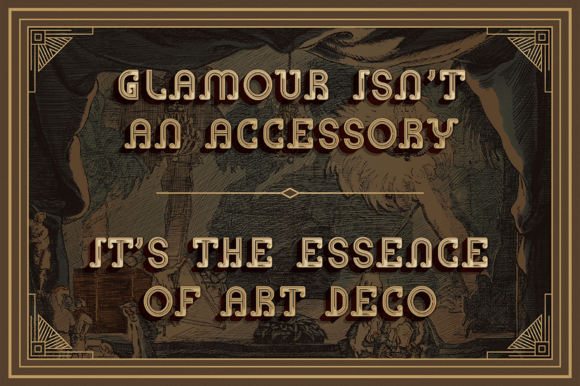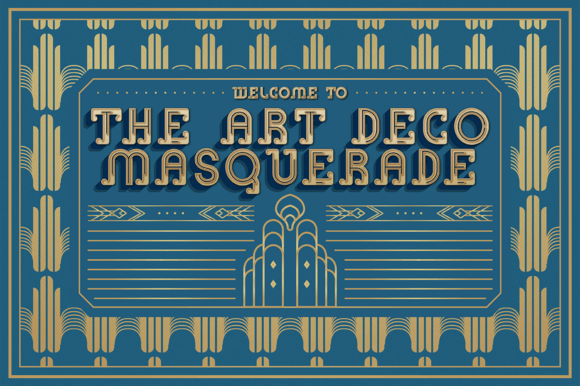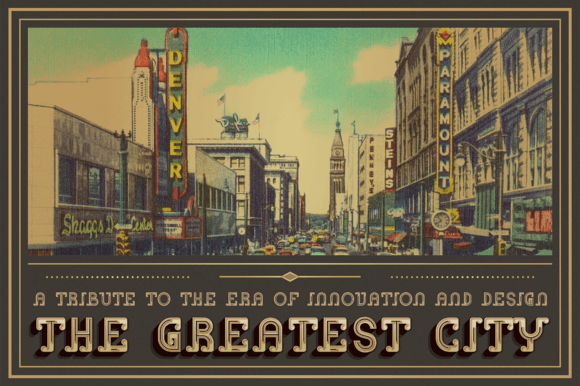
Introduction to Inline Heritage – Art Deco Font
Have you ever stumbled upon an old vintage poster or a luxurious invitation that transports you to a bygone era? For designers, this moment of discovery is often a spark that ignites a creative project. As we gaze upon the intricate details and bold lines of a bygone era, we can’t help but feel inspired to bring a touch of that glamour into our own work. This is exactly what Inline Heritage – Art Deco Font offers: a high-quality design resource that combines the elegance of Art Deco with modern versatility.
Whether you’re working on a creative project that requires a luxurious feel or simply need a reliable design element to elevate your branding, Inline Heritage is an invaluable resource. Its sleek lines and ornate style evoke the grandeur of Art Deco architecture, while its transparent background and free download make it a convenient addition to any project. In this article, we’ll delve into the world of Inline Heritage and explore why it’s a must-have for designers.
Key Features of Inline Heritage – Art Deco Font
- High-quality design resource perfect for creative projects
- Supports Latin characters and numbers, making it ideal for various design applications
- Unique Art Deco design with intricate details and ornate flourishes, adding a touch of elegance to any project
- Perfect for use in graphic design, branding, advertising, and other creative projects where a touch of luxury and sophistication is desired
Honest Review: Inline Heritage – Art Deco Font
As a designer, I’m always on the lookout for high-quality fonts to elevate my creative projects. The Inline Heritage – Art Deco Font is a great addition to any design resource collection. This font is perfect for designers who want to add a touch of luxury and sophistication to their designs.
- ✨ High-quality font with crisp lines and clean typography.
- ⚠️ Limited font weights, which may limit its versatility in certain design applications.
- ⚠️ Not ideal for use in small font sizes due to its ornate design.
Overall, I’m impressed with the Inline Heritage – Art Deco Font. Its high-quality design and transparent background make it an excellent addition to any design resource collection. While it may have some limitations, it’s a great resource for designers who want to add a touch of luxury to their creative projects.
The Inline Heritage – Art Deco Font is a versatile design resource that can be used in a variety of creative projects, including invitations, posters, and social media graphics. Its transparent background makes it easy to use in conjunction with other design elements.